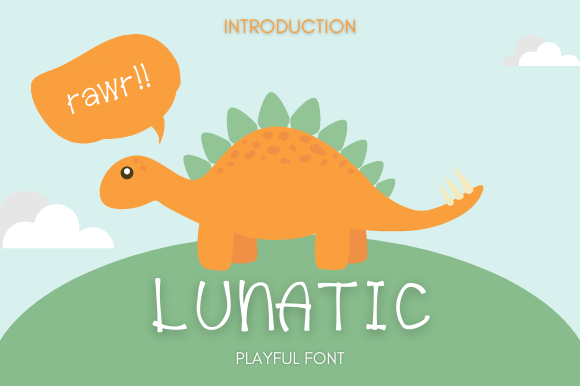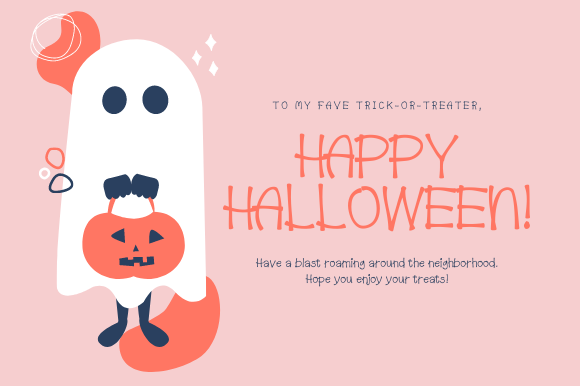
Script Fonts Lunatic Font 0 235 FacebookTwitterPinterestWhatsApp 1 of 3 Lunatic Font Poster 2... Lunatic Font Poster 3... About Lunatic Font Lunatic is a playful handwritten font that can be used for all chalkboard quotes or teaching material! Its authentic look and feel will add a personal and realistic feel to your designs. DOWNLOAD NOW